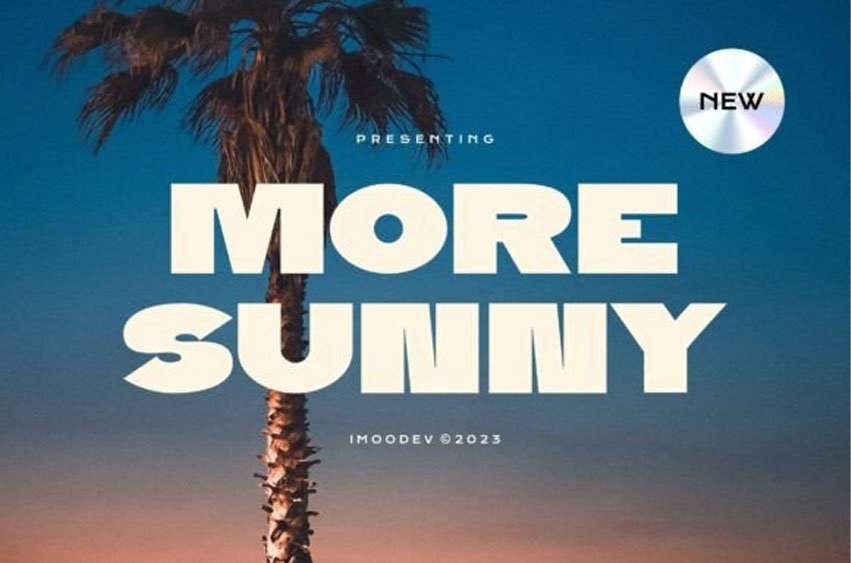
More Sunny Font is a chunky sans serif font with a distinctly retro flair. Each character is wide and robust, ensuring maximum visibility, while the rounded curves, and dramatic geometric shapes channel the energy of the 1970s and 1980s make this font is fun.
Perfect for headlines, signage, billboards, packaging design, posters, branding design for like a snack foods, kids products, or creative agencies.. Its “chubby” appearance gives it a friendly personality, but the strong structure ensures it remains impactful and readable even at large sizes.